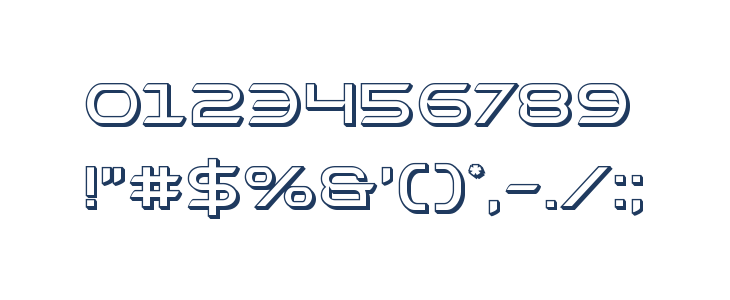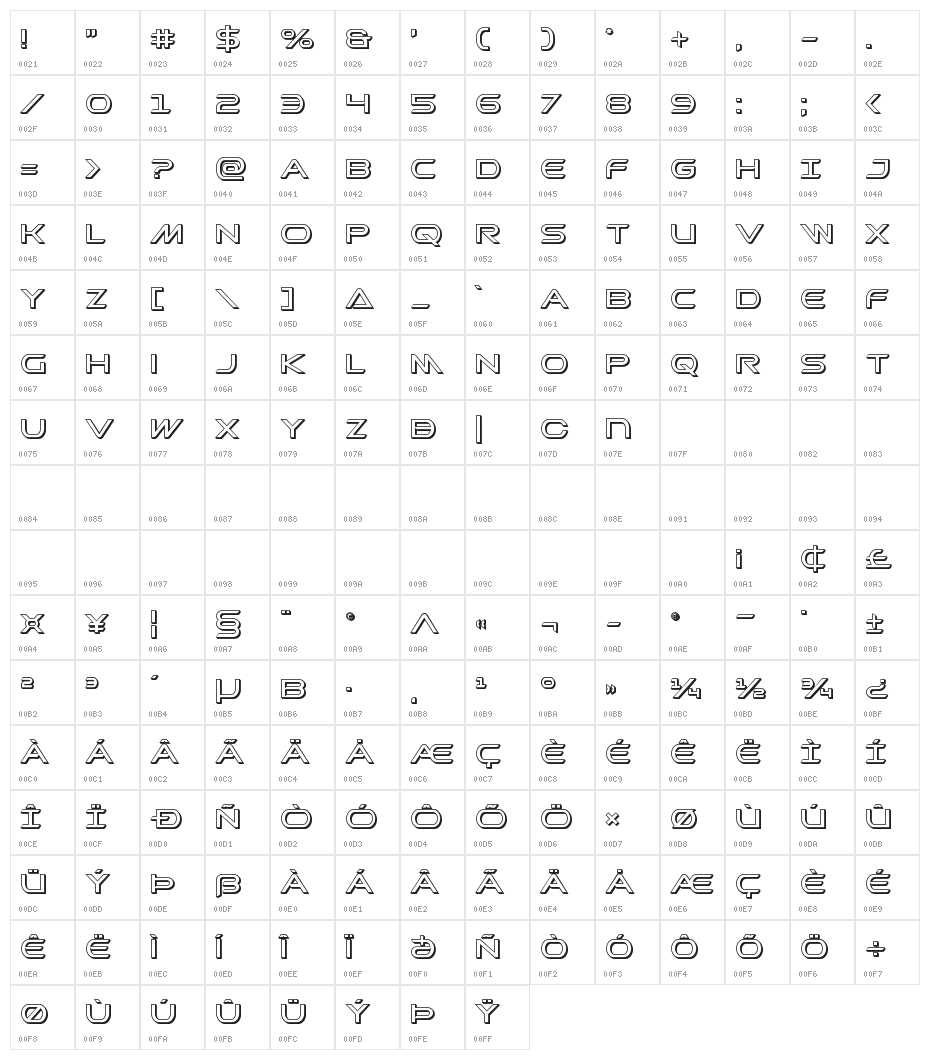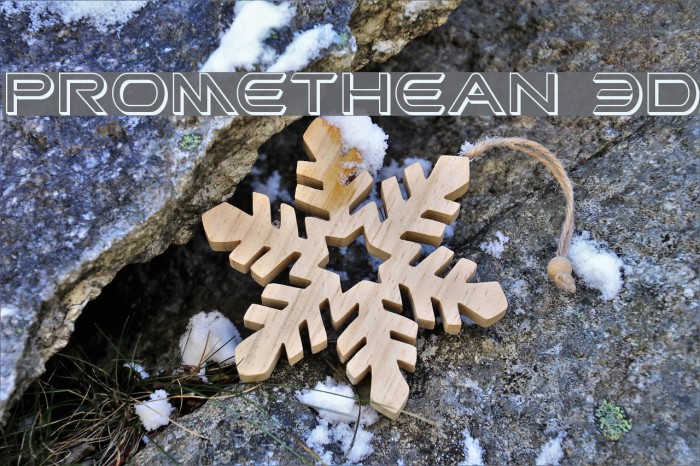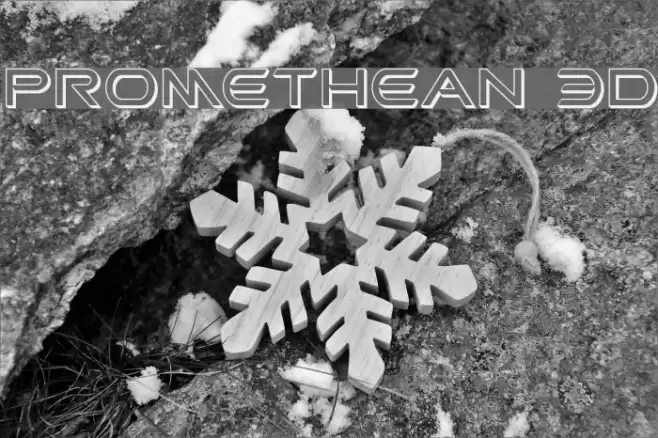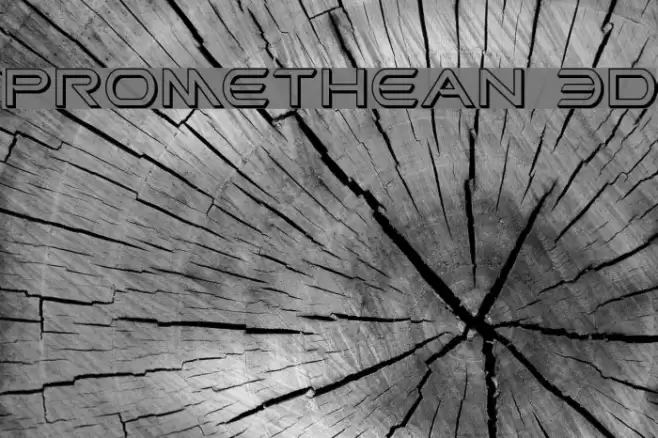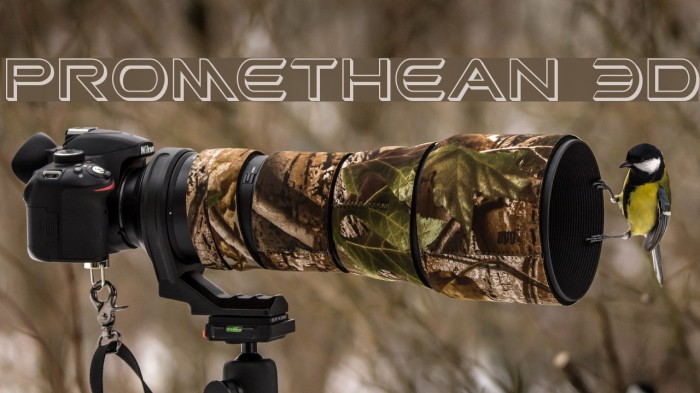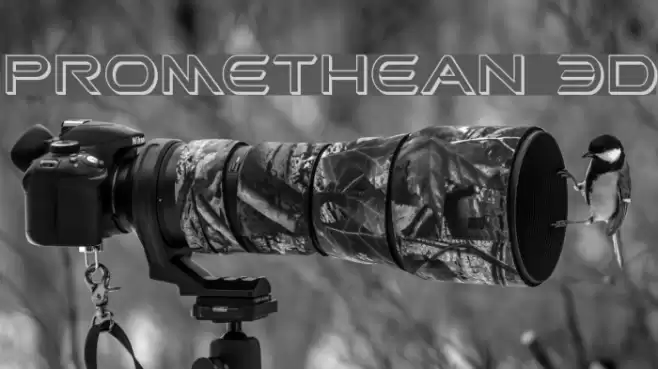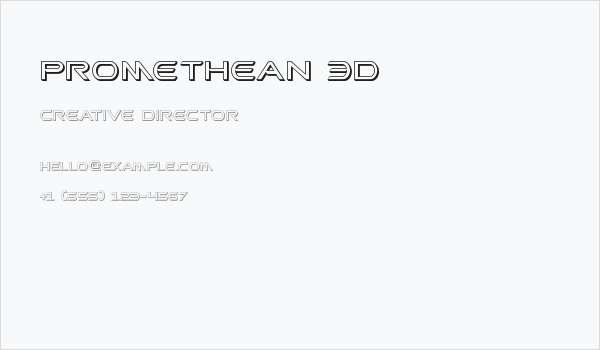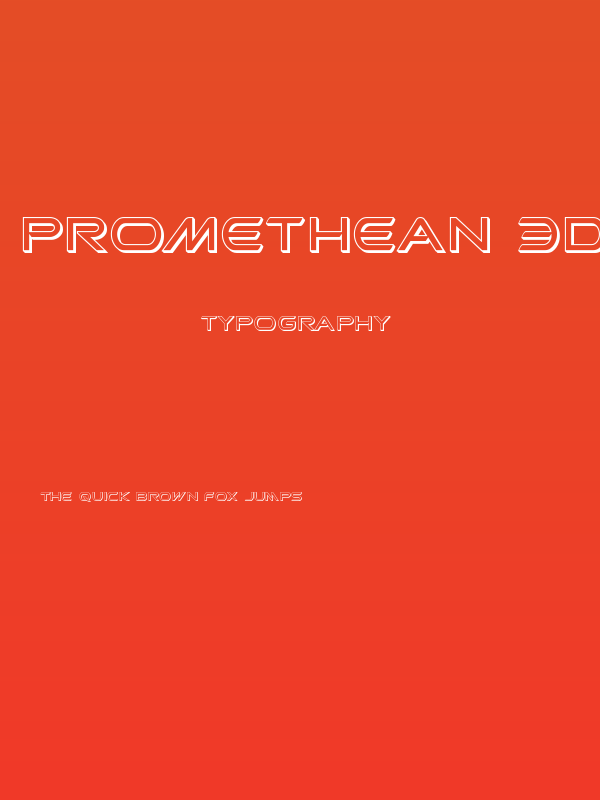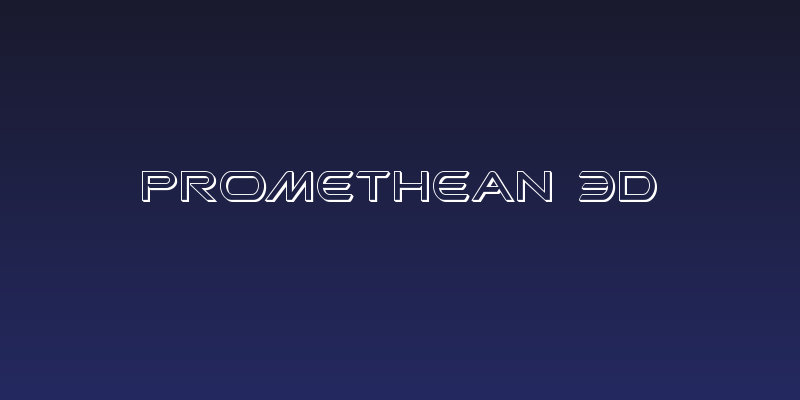
Promethean 3D Font
Promethean 3D Description
This font features a futuristic and geometric design with a three-dimensional effect. The characters are outlined, giving them a hollow appearance that enhances their modern aesthetic. The uppercase letters are bold and angular, with sharp edges and clean lines, creating a sense of precision and technology. The numerals and special characters maintain this consistent style, making the font suitable for digital and tech-related projects. The overall look is sleek and contemporary, ideal for conveying innovation and forward-thinking.